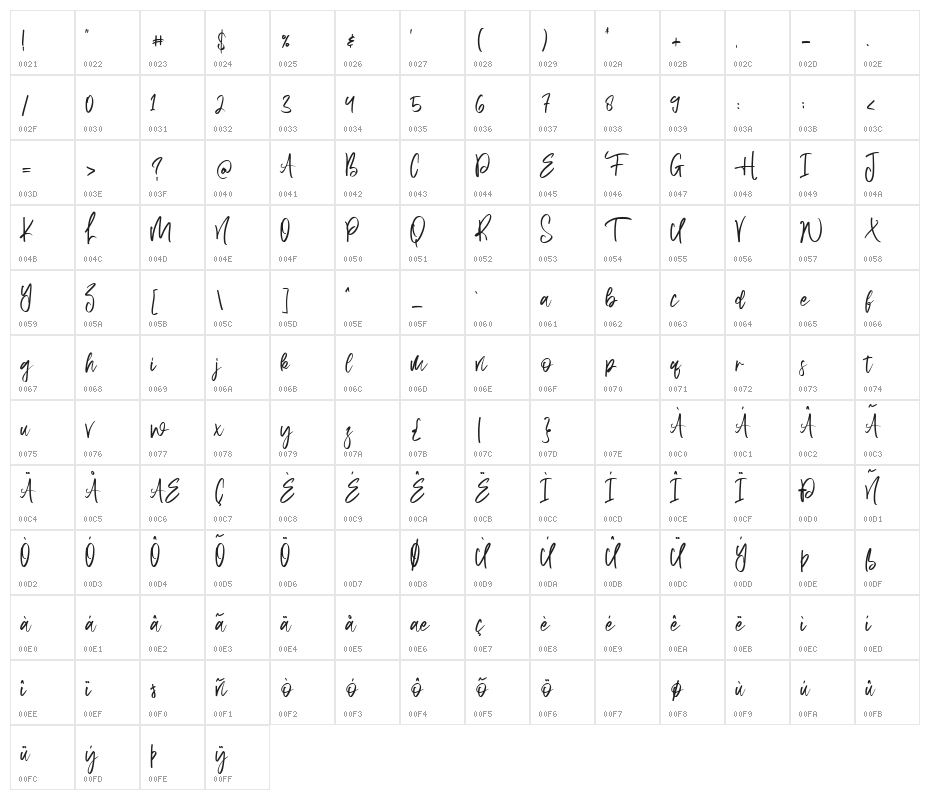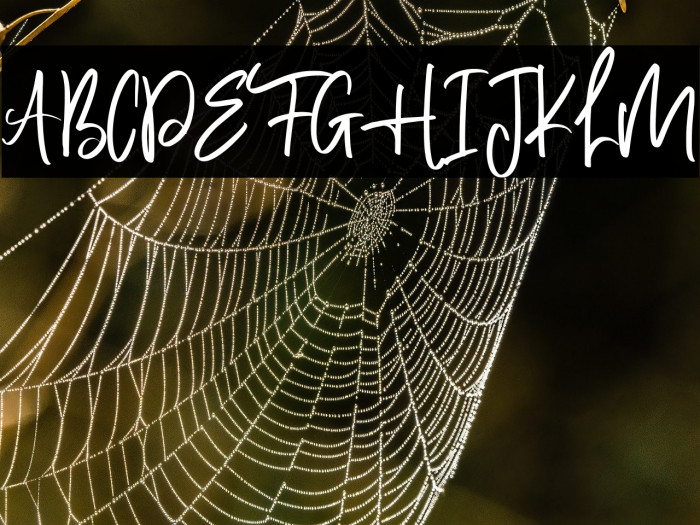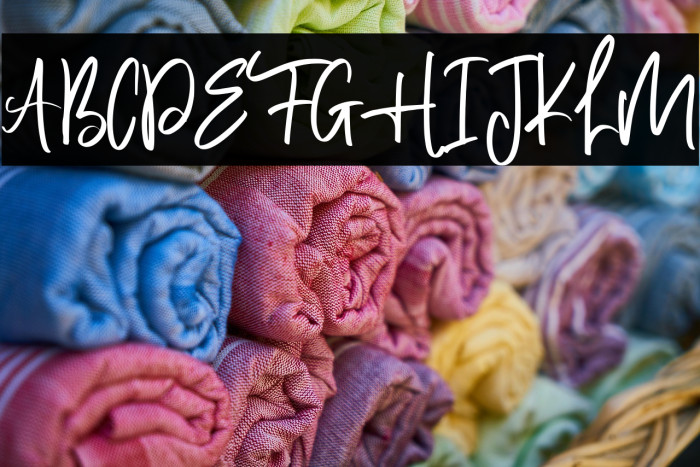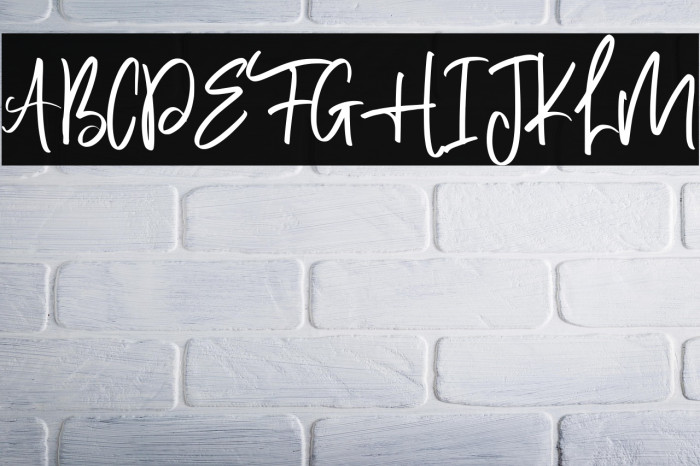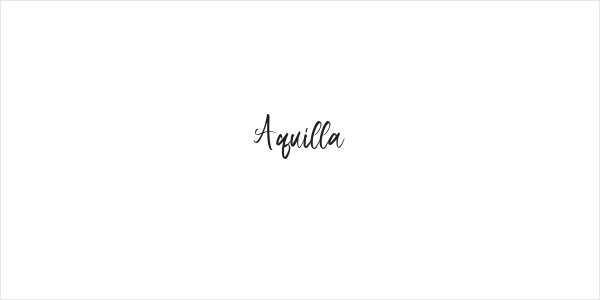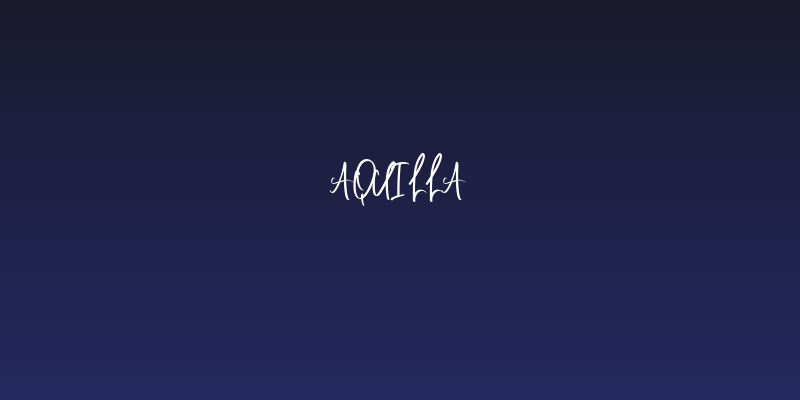
Aquilla Font
Aquilla Description
This font features a lively and expressive handwritten style, characterized by its fluid and dynamic strokes. The uppercase letters exhibit a playful yet elegant flair, with varying stroke widths that add a sense of movement and personality. The lowercase letters maintain a cohesive flow, complementing the uppercase with their smooth curves and loops. Numbers and special characters are crafted with the same attention to detail, ensuring consistency across the entire character set. The overall appearance is both artistic and approachable, making it suitable for a variety of creative applications.